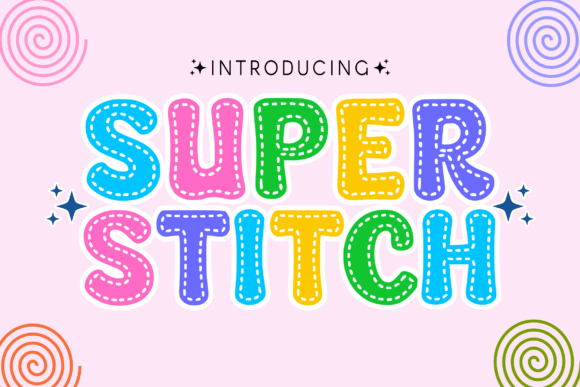
Super Stitch Font
Introducing “Super Stitch” is a Decorative font with a child theme, each character is speckled so it is easy to recognize. Perfect for sublimation designs for t-shirts, mugs, tote bags, animations, comic titles, and more. Pour your imagination here!